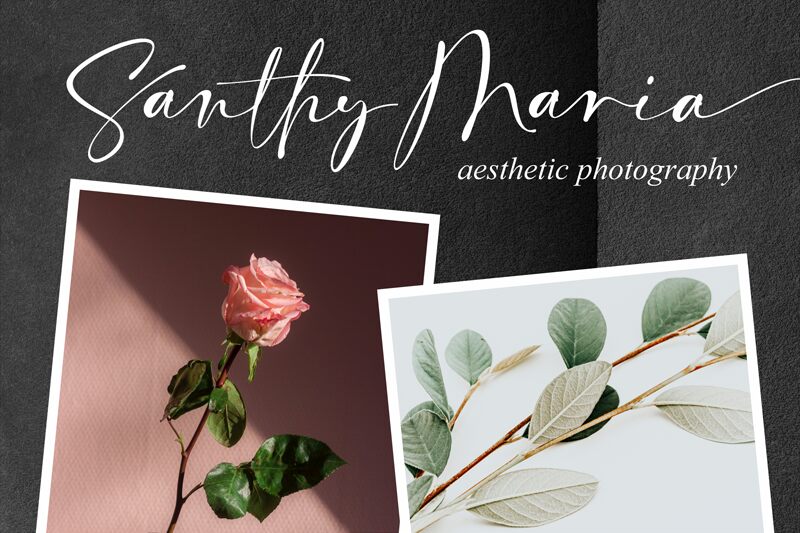
Callient
Introducing Callient, a stunning calligraphy font designed by Riyadh Rahman. This light-weight font is perfect for projects that demand an elegant and sophisticated look. With its fluid strokes and delicate curves, Callient adds a touch of class to any design project. Whether you're creating wedding invitations, branding materials or social media graphics, this font is sure to make your work stand out. Let your creativity flow with Callient - the perfect choice for those seeking a refined and timeless look.